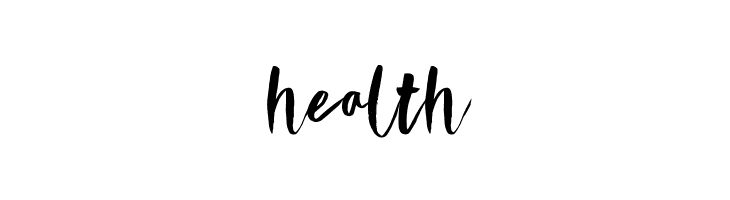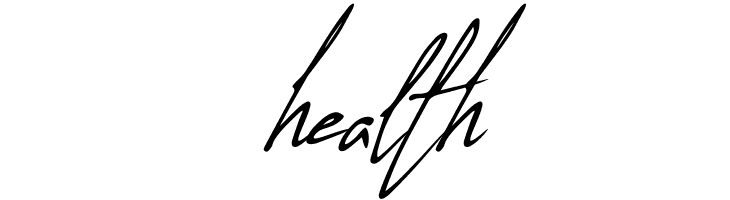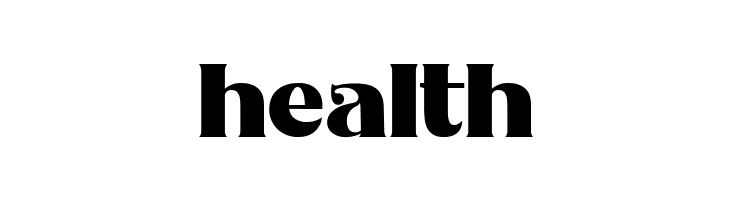
A bold, vintage-inspired font with expressive curves and flourishes.
A bold, cursive font with elegant curves and a strong presence.
A bold, expressive script font with dynamic curves and a hand-painted feel.
A bold, textured script font with a playful and vintage feel.
A bold, brush-style font with dynamic, sweeping strokes and artistic flair.
An elegant, expressive script font with fluid, dynamic strokes and artistic flair.
A bold, high-contrast font ideal for impactful headlines and titles.
A playful, handwritten font with elongated, curly characters.
A playful, handwritten script font with smooth, flowing characters.
A bold, decorative font with elegant swirls and dramatic strokes.